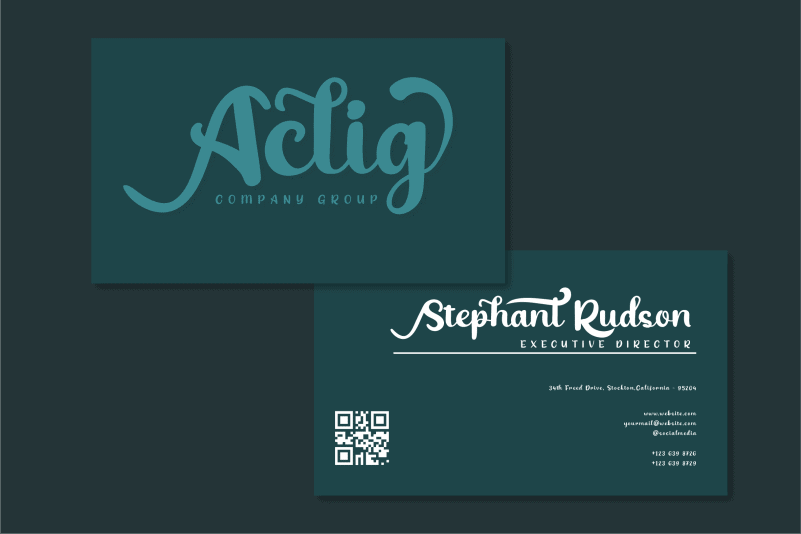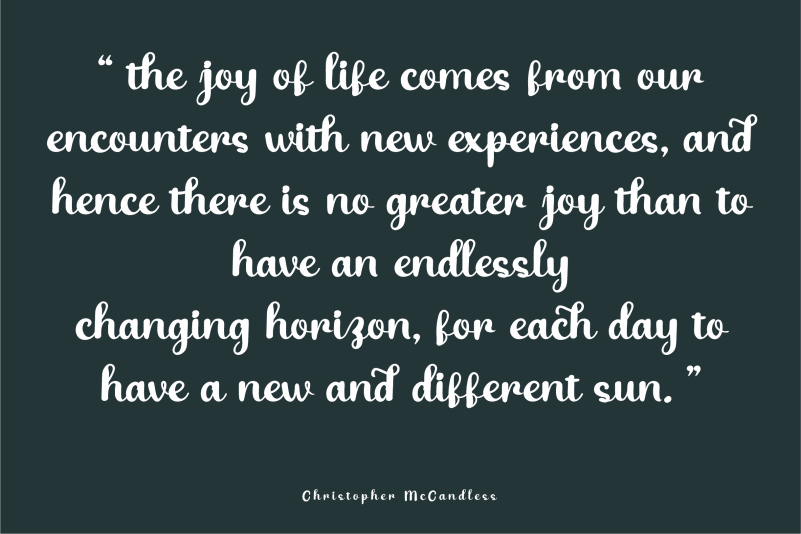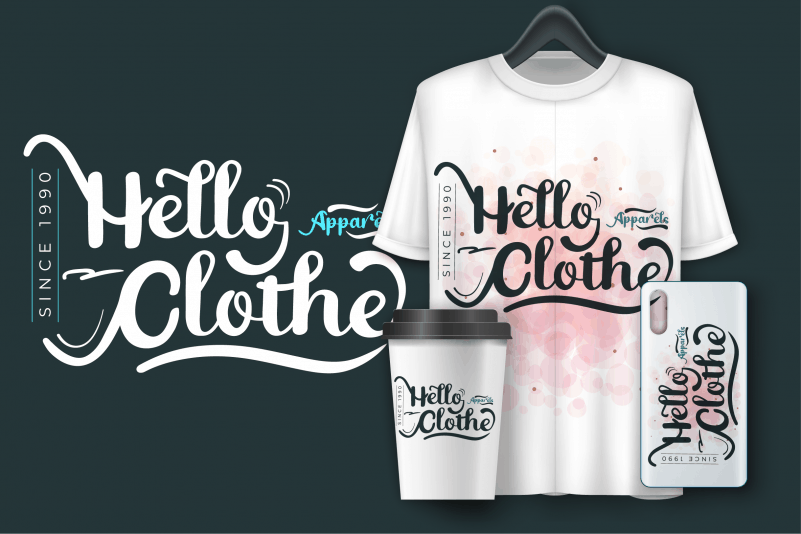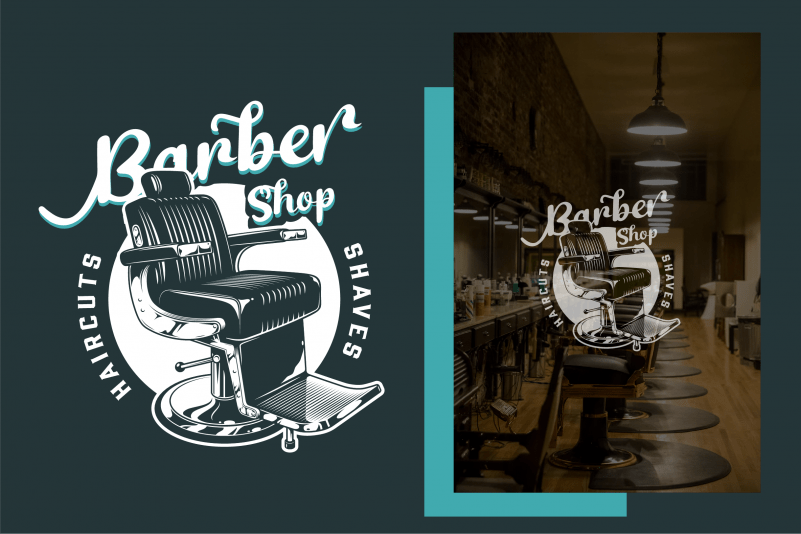
Babang Calligraphy Font, this typeface is a script typeface that is connected with clear style and dramatic movements. This font comes with uppercase letters, lowercase letters, numbers, punctuation marks, and so many variations on each character including alternating opentypes, common binders and additions to make you customize your design. Perfect to use for Logotype, Letterhead, Posters, Clothing Designs, Labels and all designs that require handwriting
Also supported is the encrypted PUA.
OPENTYPE FEATURES
Swash
Standard Ligature
Alternative Style
All Alternatives
Coded PUA Characters – Fully accessible without additional design software.